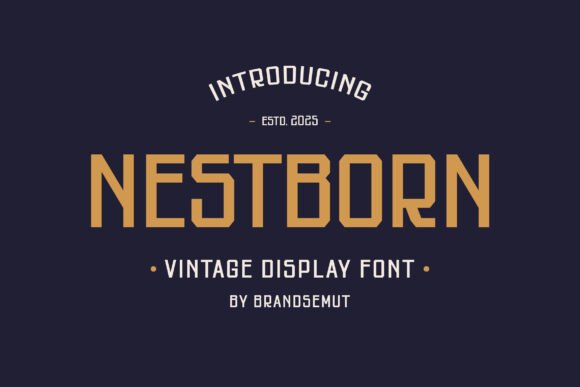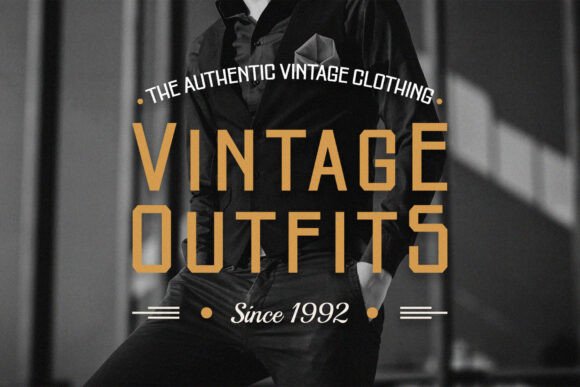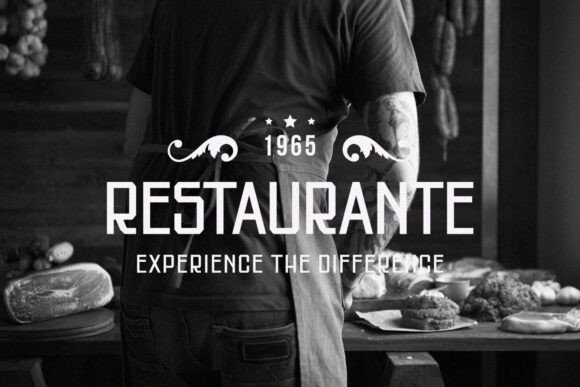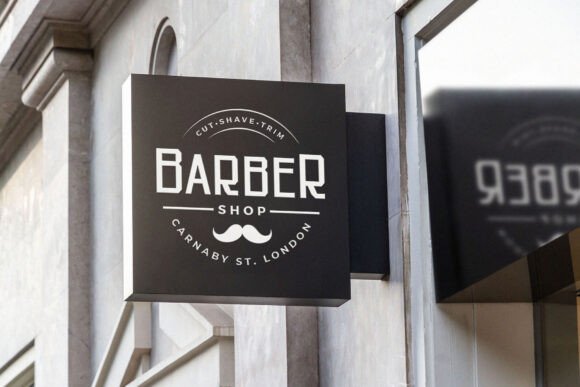
Nestborn Font: A Bold Vintage Display Font for Logos & Branding
About the Nestborn Font
Meet Nestborn Font, a stunning font that brings a touch of elegance and professionalism to any design. Introducing Nestborn Vintage Display Sans
Nestborn is a vintage and simple font, best used as a display for headings, logos, branding, magazines, product packaging and invitations. Nestborn comes with clean lines and smooth curves, giving any project an extra touch of class.
Nestborn’s vintage styling and confident curves lend themselves ideally to headlines, logos, and short-form text on packaging or posters. Its legibility falters in longer blocks of text, making it unsuitable for body copy or UI elements. The font exudes a sophisticated yet approachable personality.
Pairing Nestborn effectively depends on the desired mood. For a classic feel, consider a serif like Garamond or a clean sans-serif like Lato. To maintain a vintage theme but add contrast, a geometric sans-serif such as Futura would provide a modern edge. For a more playful feel, a script font could add a touch of whimsy, although careful selection is needed to avoid visual clutter.
Nestborn is perfectly suited for brands aiming for a timeless yet contemporary image – think artisanal goods, boutique hotels, or vintage-inspired fashion. Its inherent elegance is balanced by a friendly approachability, making it versatile for diverse applications.
Nestborn Font Usage Examples
Nestborn Font Example